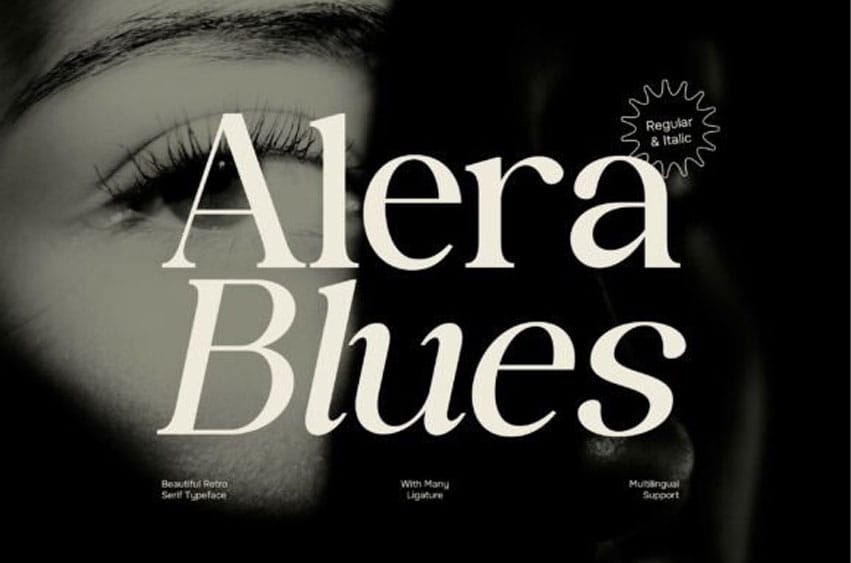
Alera Blues Font is a beautiful retro serif font inspired by classic vintage typography. Featuring distinctive serif details, smooth curves, and balanced letterforms, Alera Blues brings a nostalgic charm that reflects the timeless character of retro design.
The font blends vintage aesthetics with a clean and refined structure, creating a style that feels both classic and visually appealing.